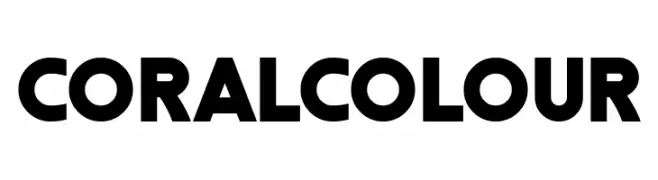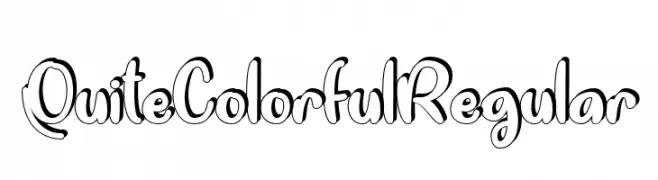
Bold, simplified social and tech brand icons in rounded triangular shapes.
Uniform hexagonal icon set for social and tech brands.
Bold, badge-style icons featuring major brand and social media logos.
A bold, geometric font with uniform stroke widths and a modern aesthetic.
A playful, outlined font with a bold, bubbly style and three-dimensional effect.
A classic serif font with elegant curves and balanced proportions.
A playful, bold, and hand-drawn font with a whimsical style.
An elegant, flowing script font with a bold, italic style.